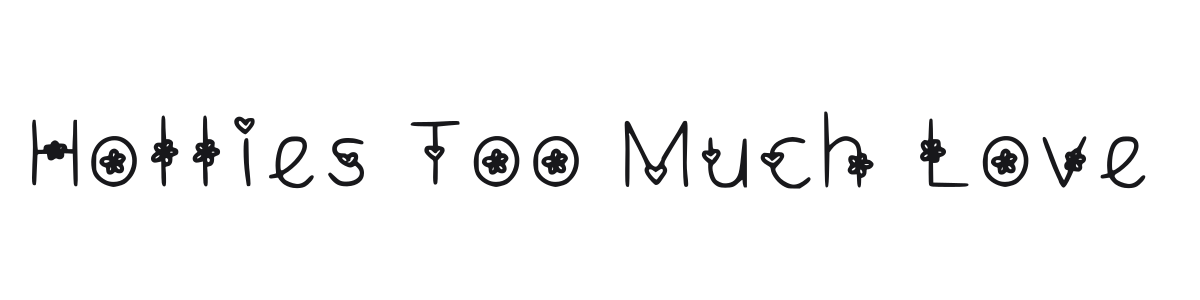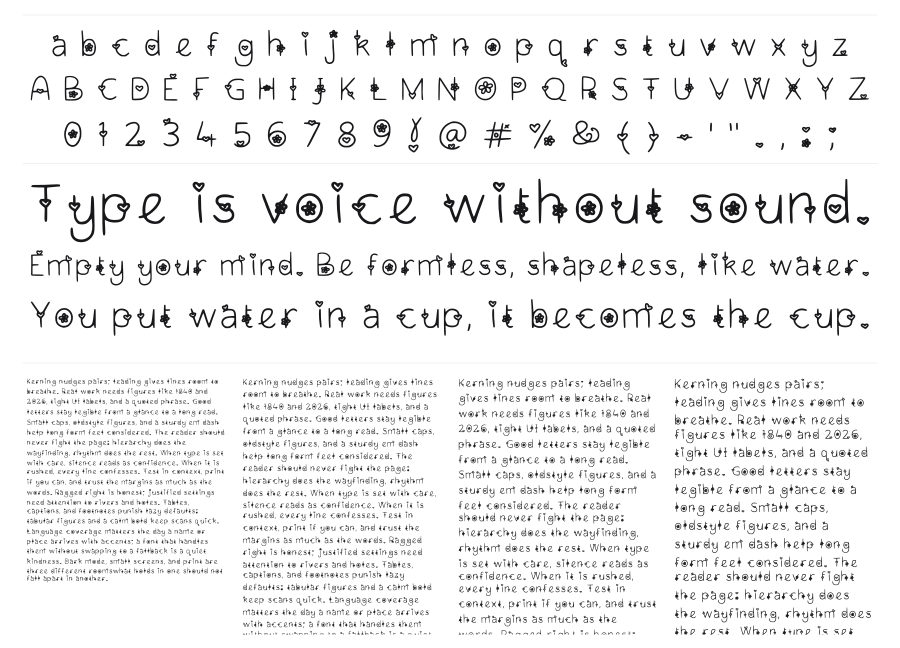
Hollies Too Much Love
Hollies Too Much Love is a hand-drawn casual typeface that weaves tiny hearts and flower doodles directly into the characters. The tall, narrow letters bounce with an easy informality, and the embedded ornaments give it a warmth that straight handwriting fonts rarely achieve. It suits greeting cards, craft packaging, and any project where charm is the brief.